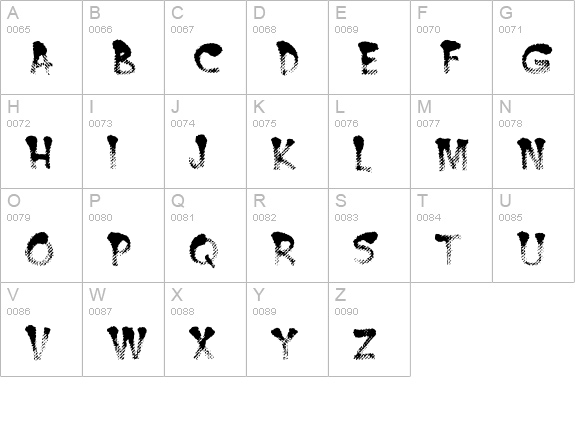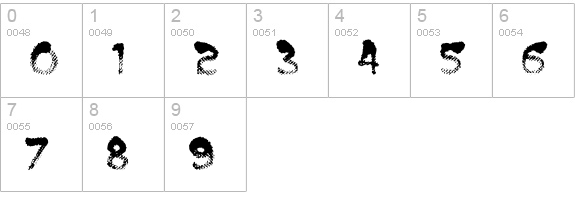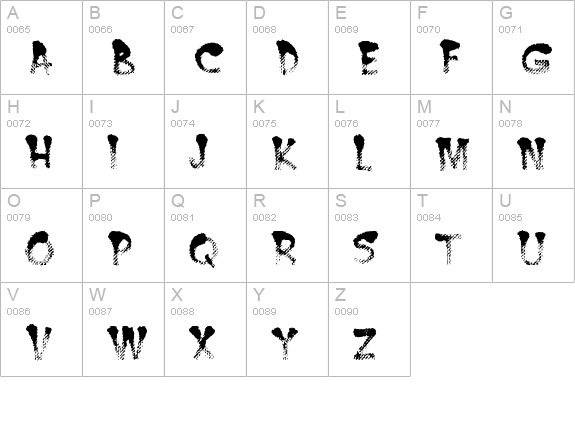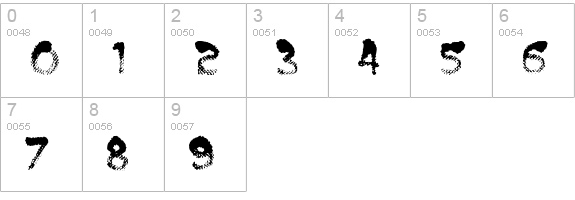
Burnt MF Font Details
Burnt MF font is a captivating and edgy typeface that exudes a raw and burnt aesthetic. Its jagged edges and distressed appearance give it a unique and rebellious feel, perfect for projects that require a bold statement. This font is ideal for creating eye-catching posters, album covers, and branding materials that demand attention. The Burnt MF font is available for free download at FontsMarket.com, making it easily accessible for designers and creatives looking to add a touch of ruggedness to their work. With its free availability and versatile design, Burnt MF font is a must-have addition to any designer's toolkit. Unleash your creativity and make a bold impact with Burnt MF font today!